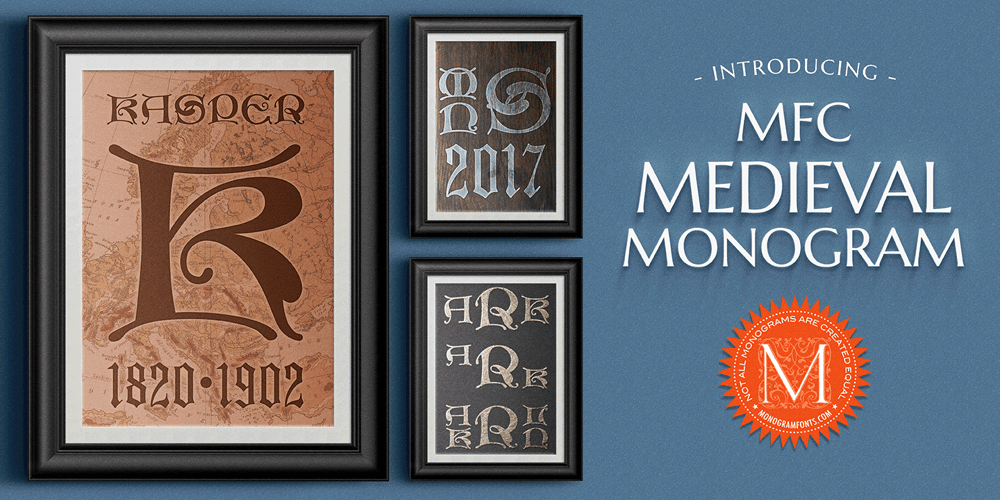
MFC Medieval Monogram
MFC Medieval Monogram font
MFC Medieval Monogram Font Family was designed by Jim Lyles, Brian J. Bonislawsky and published by Monogram Fonts Co.. MFC Medieval Monogram contains 19 styles and family package options. The source of inspiration for MFC Medieval Monogram is the 1934 “Book of American Types” by American Type Founders. Found in that specimen book was a set of Lombardic initials known as “Missal Initials” that was available in limited size metal castings. This wonderful typeface is now digitally recreated, revived, and updated with highly customizable monogramming in mind. Download and view the MFC Medieval Monogram Guidebook if you would like to learn a little more.